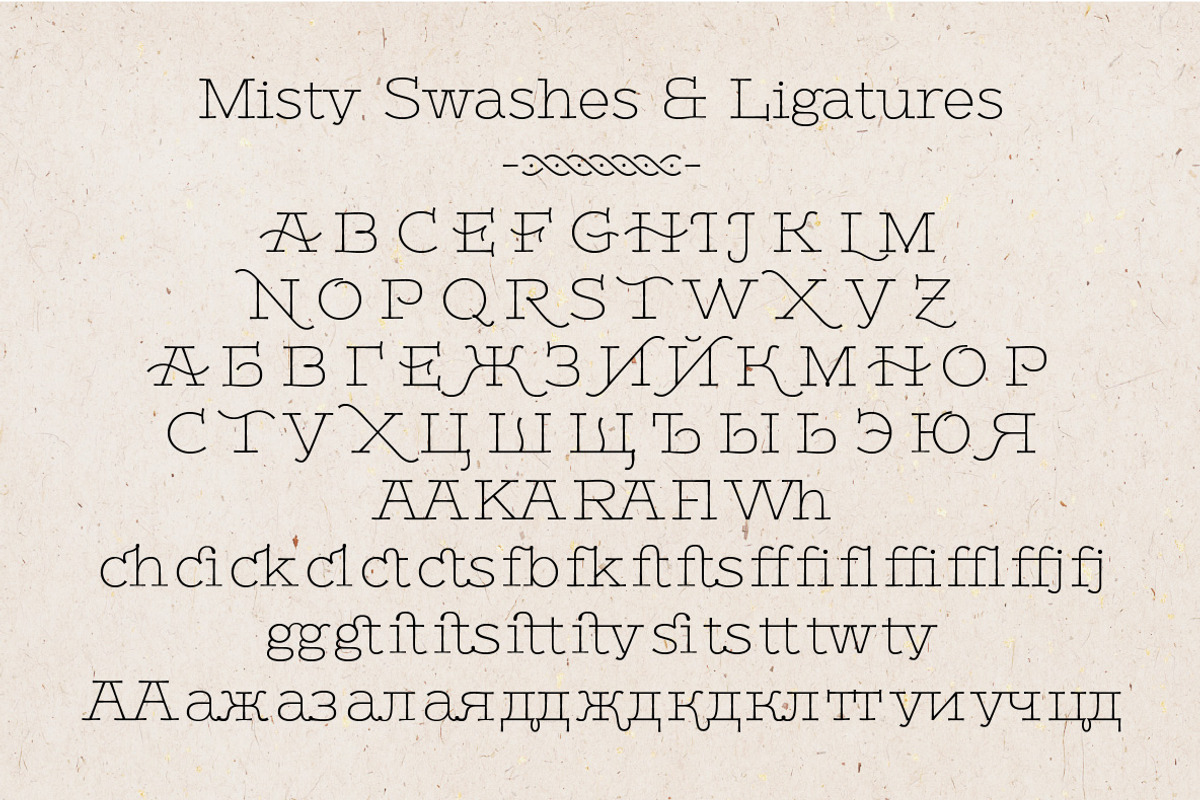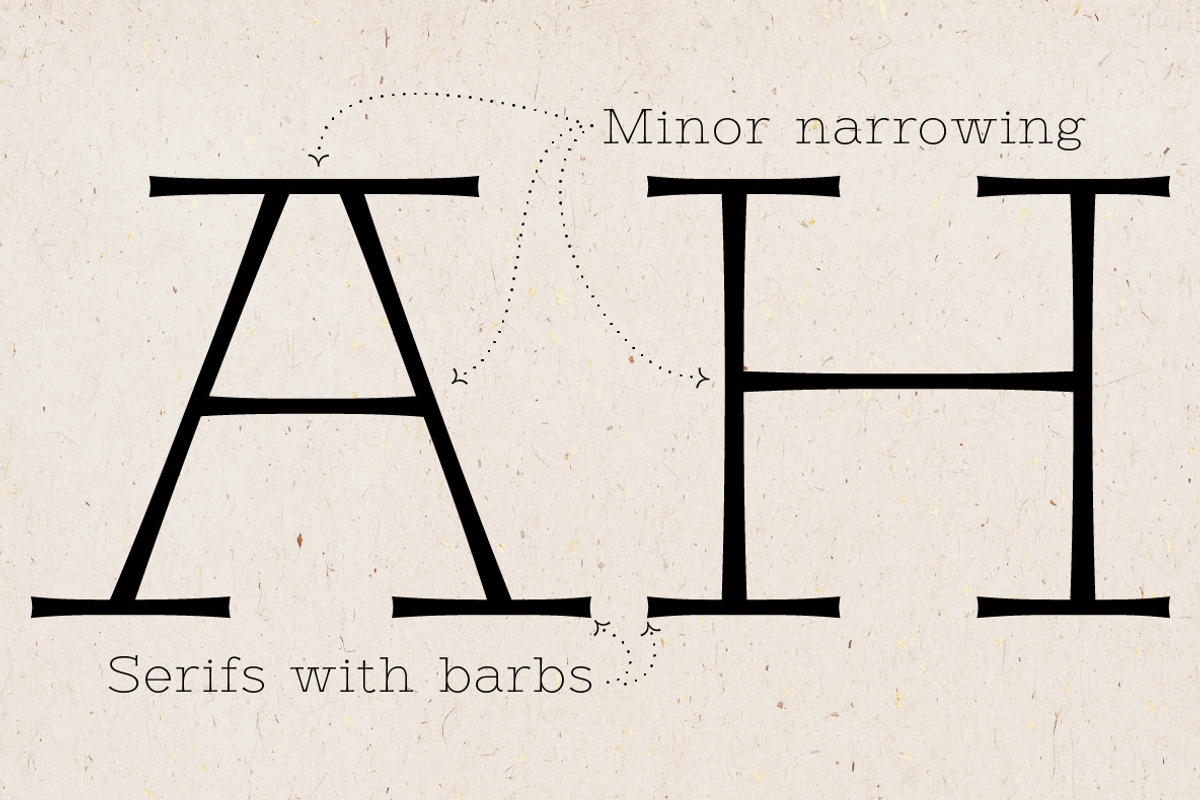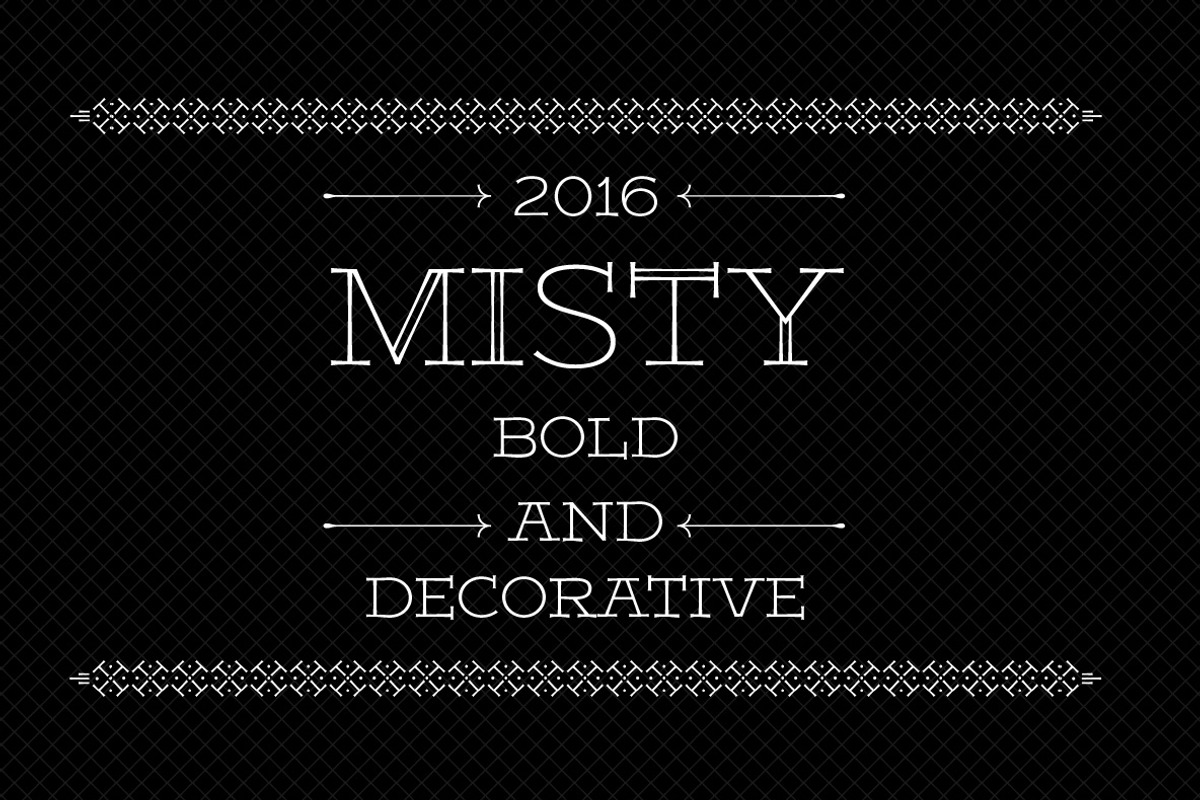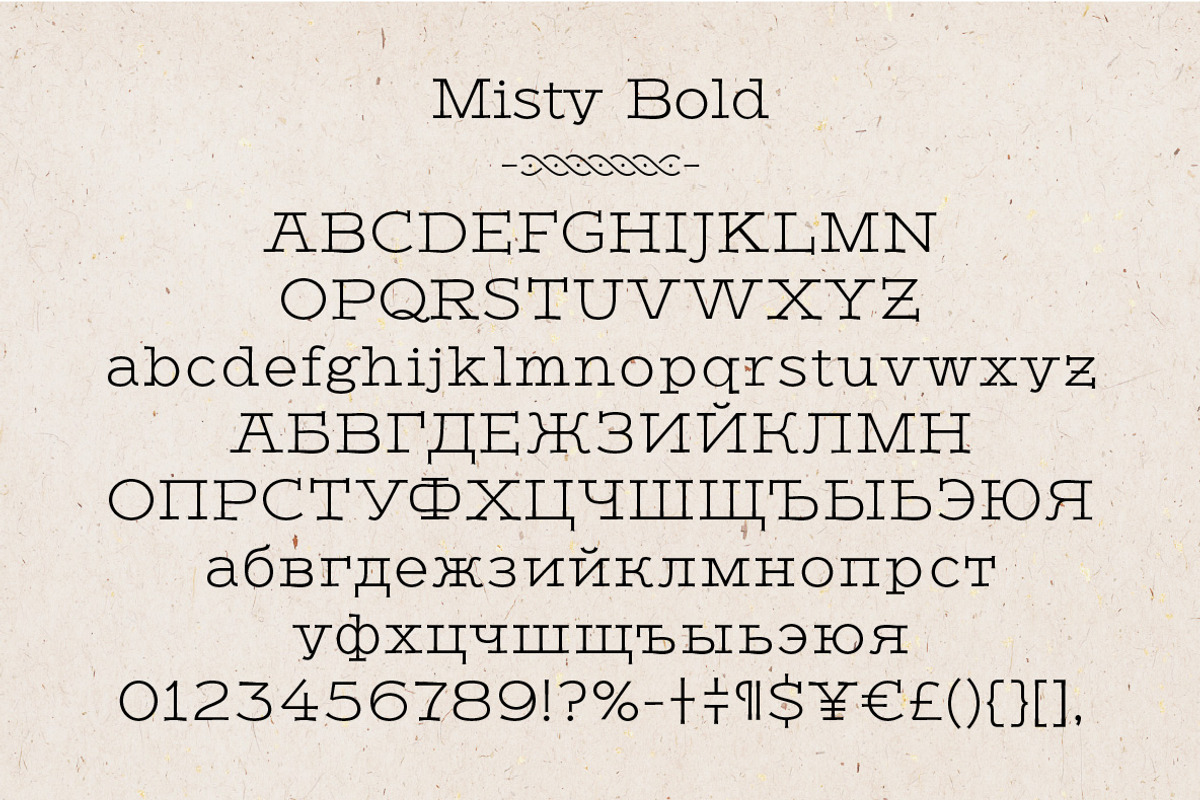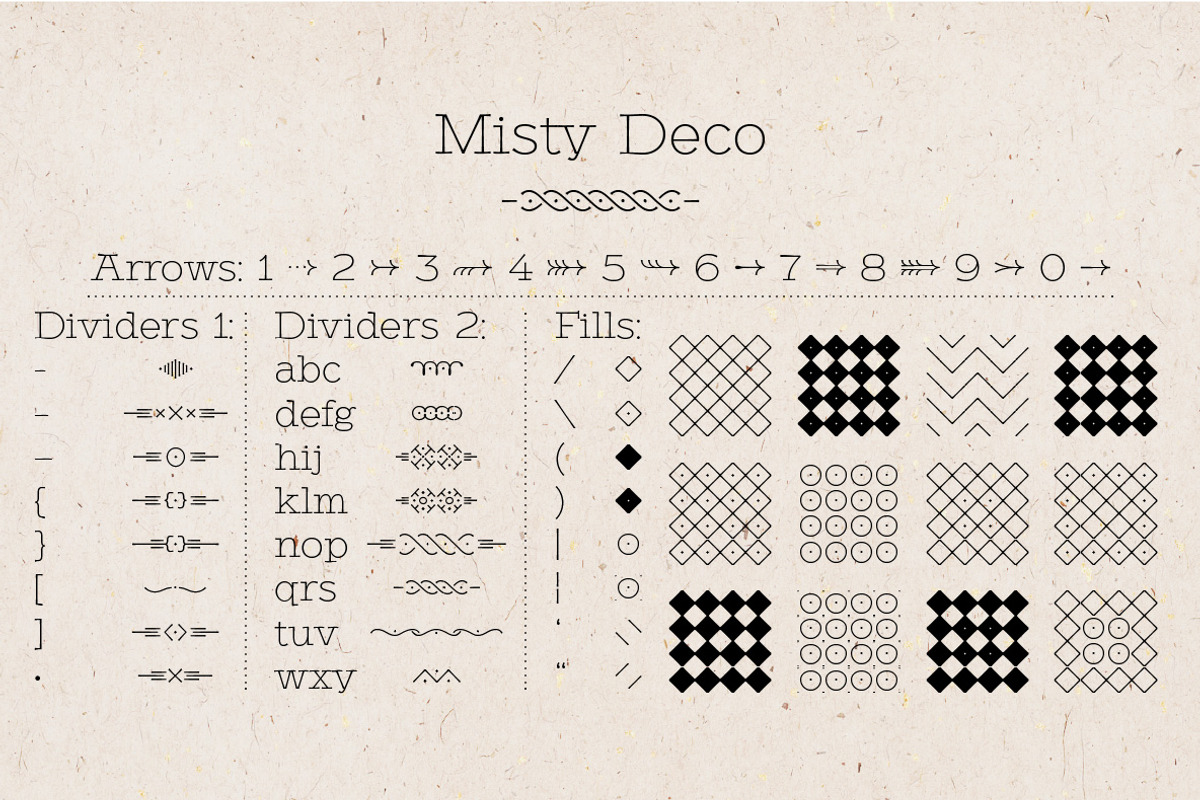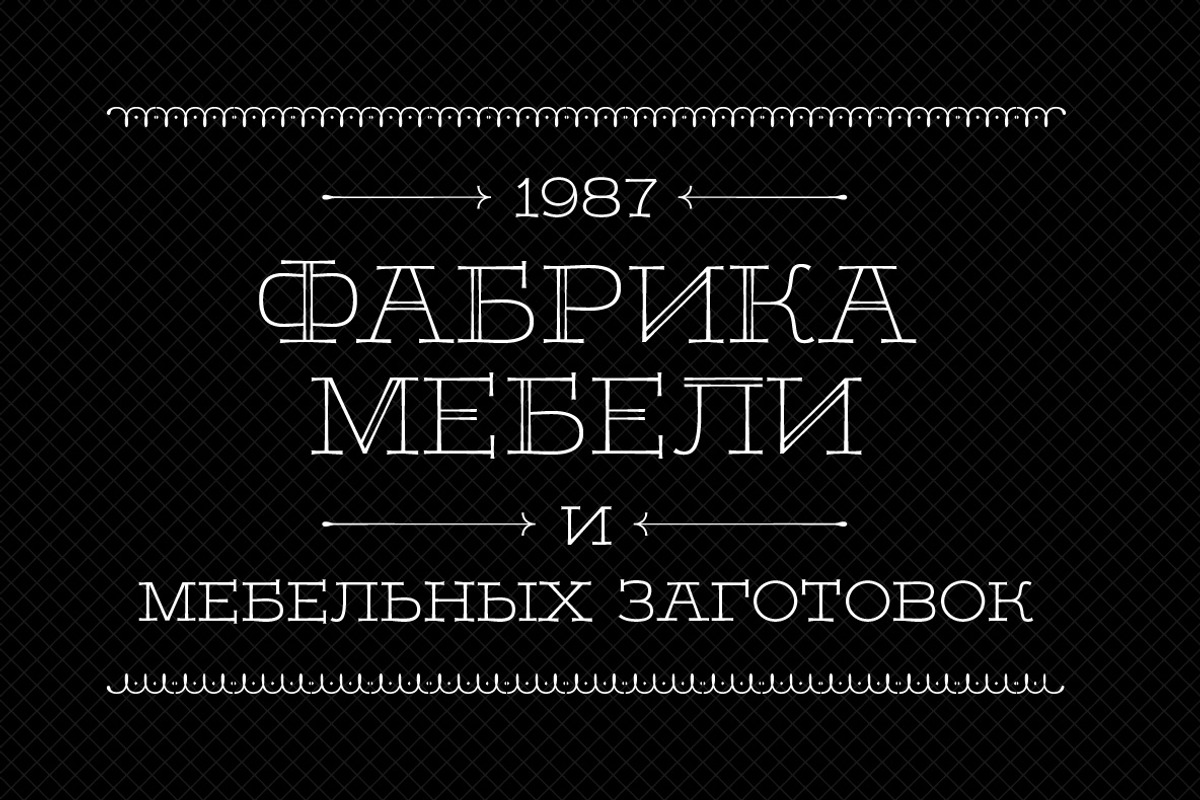
Misty Bold
Misty - two weight wild west style serif with numerous alternatives, swashes and irregular alternatives for numerous characters in SC styles. Interchanging regular characters with alternatives and vice versa, allow you to do slightly strange inscriptions. Plus deco style. Here is Bold+Deco styles